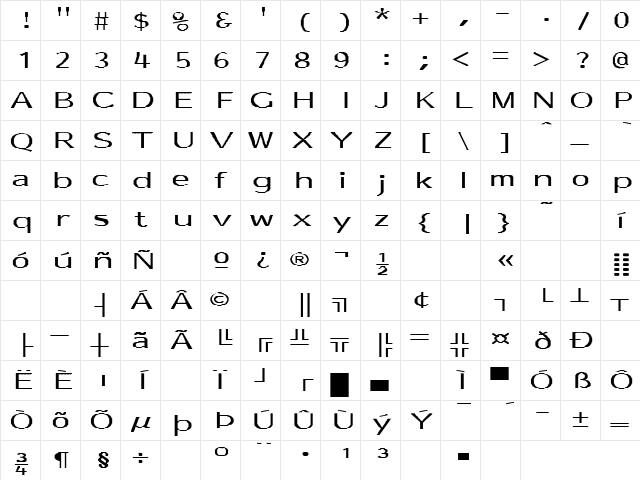
Rock And Roll 2 Regular
Design Context for Rock And Roll 2 Typeface
Rock And Roll 2 takes a measured approach to typography — its balanced proportions and neutral character make it a reliable workhorse for both digital and print work.